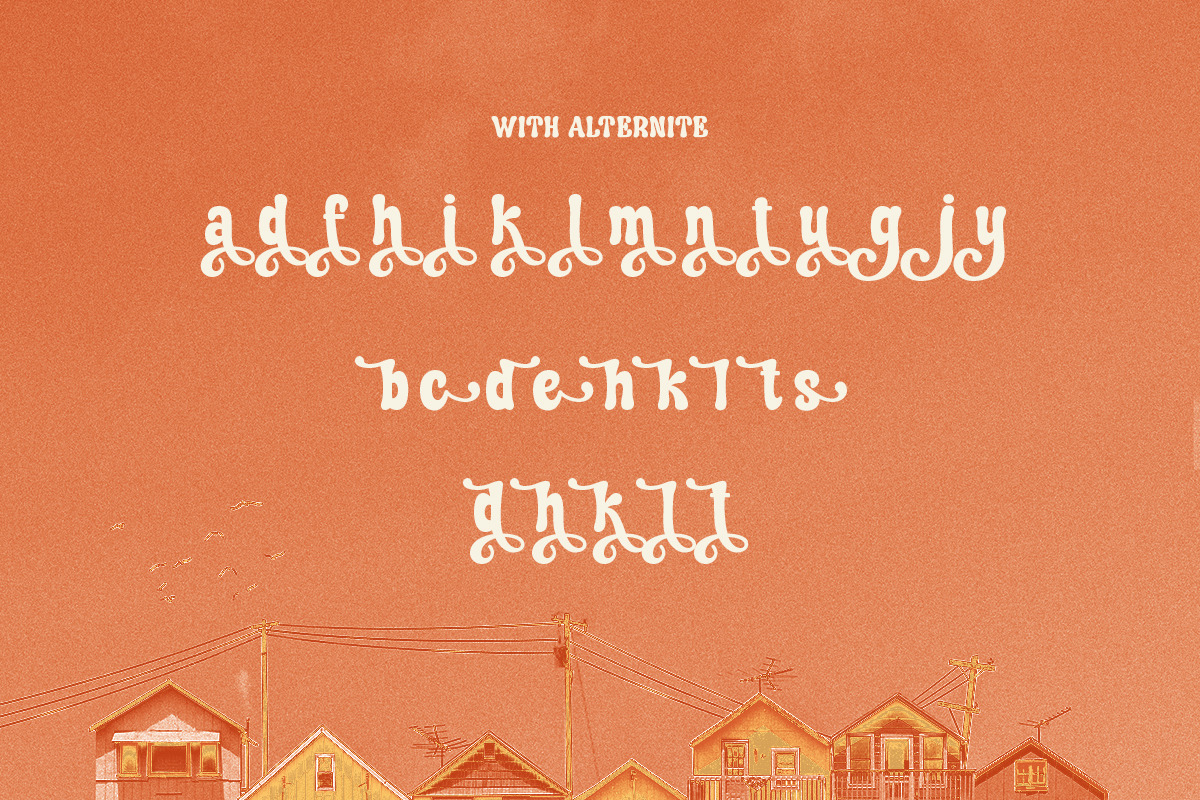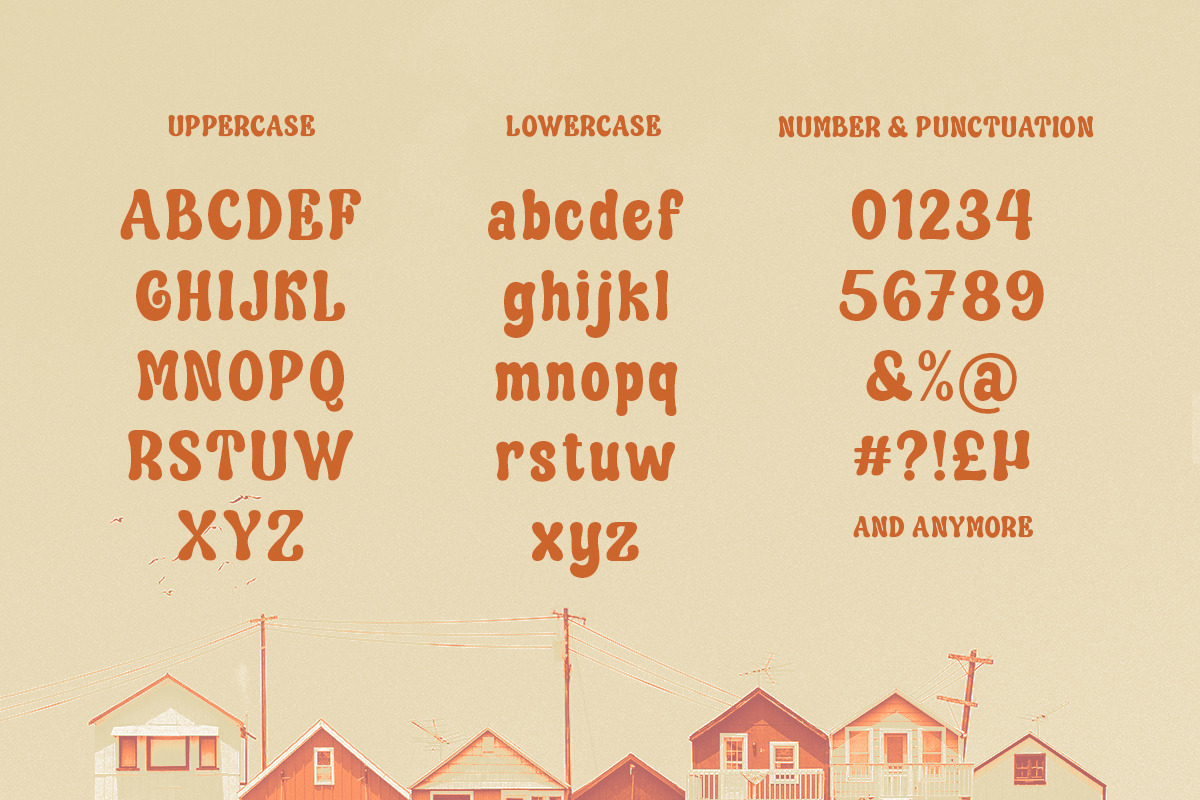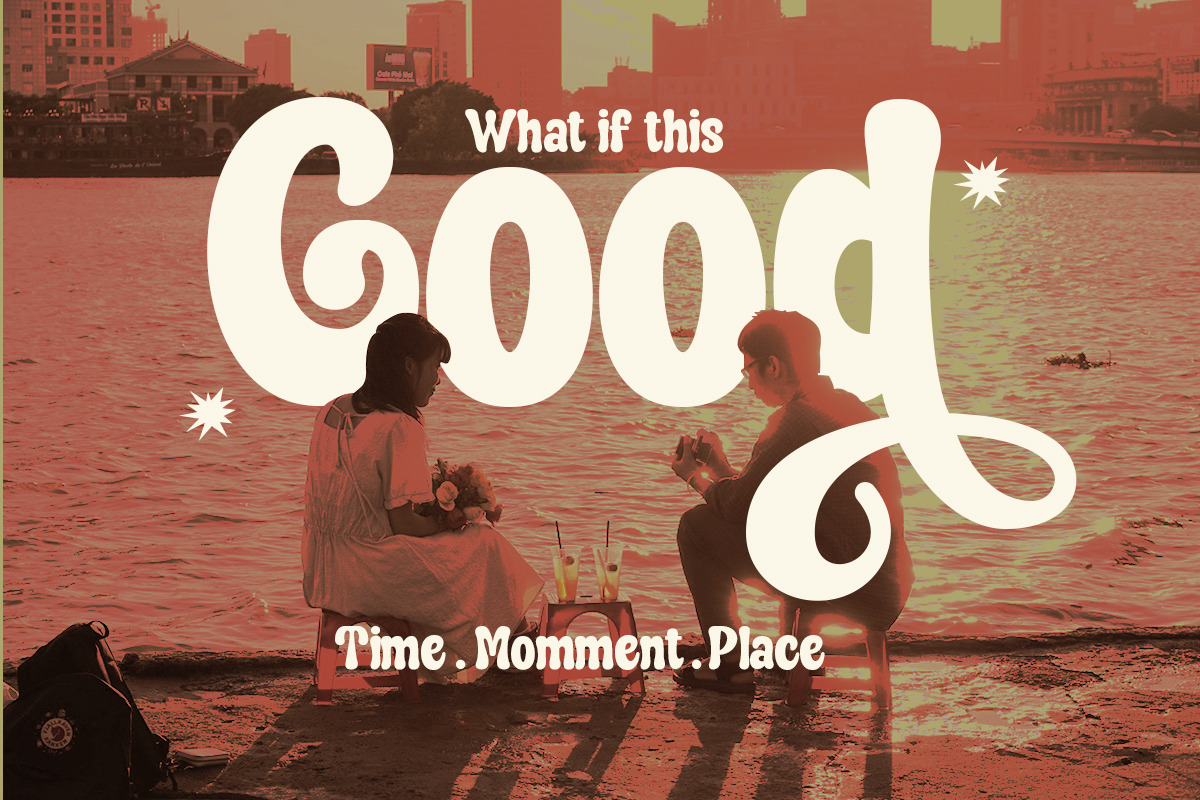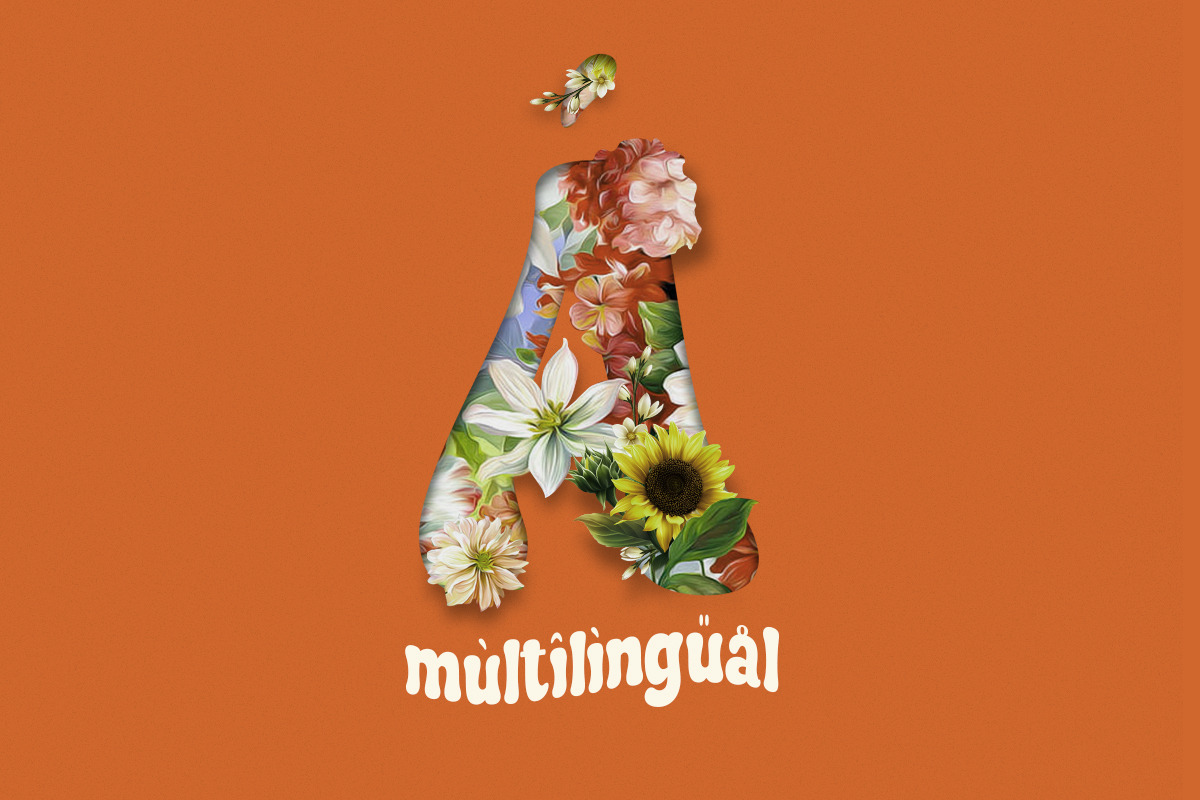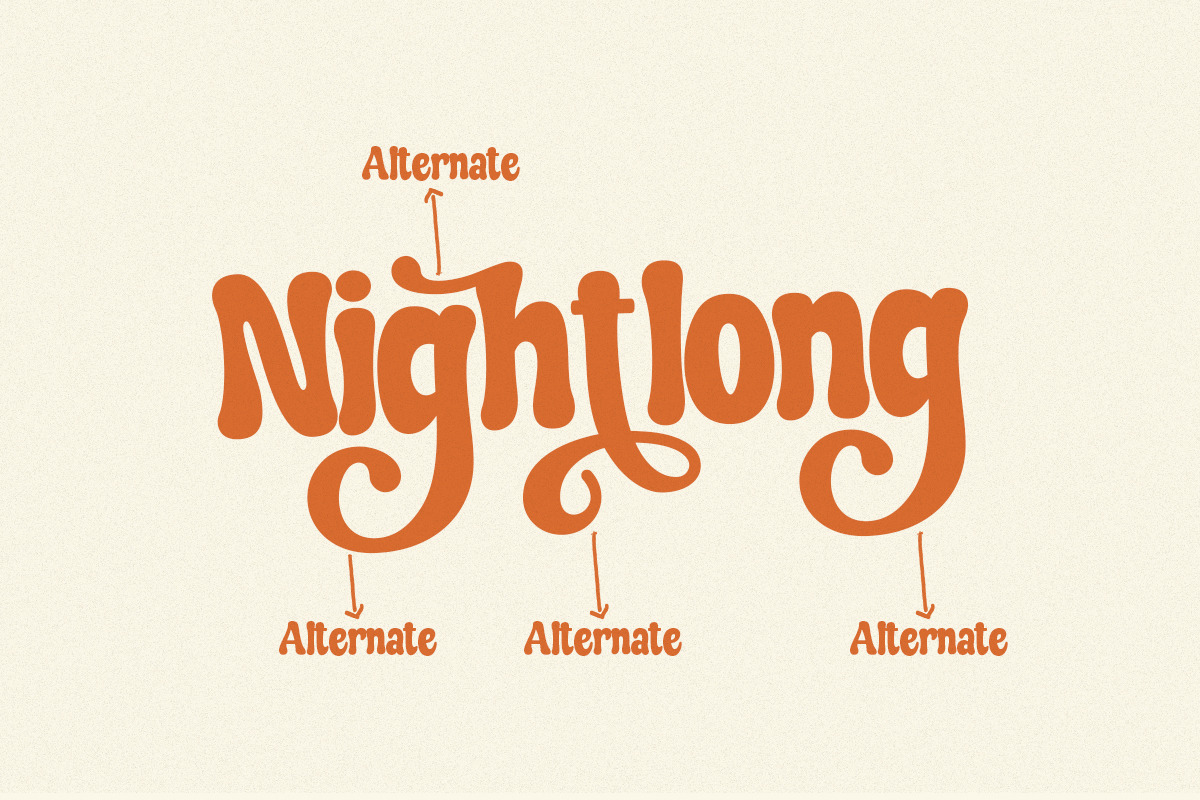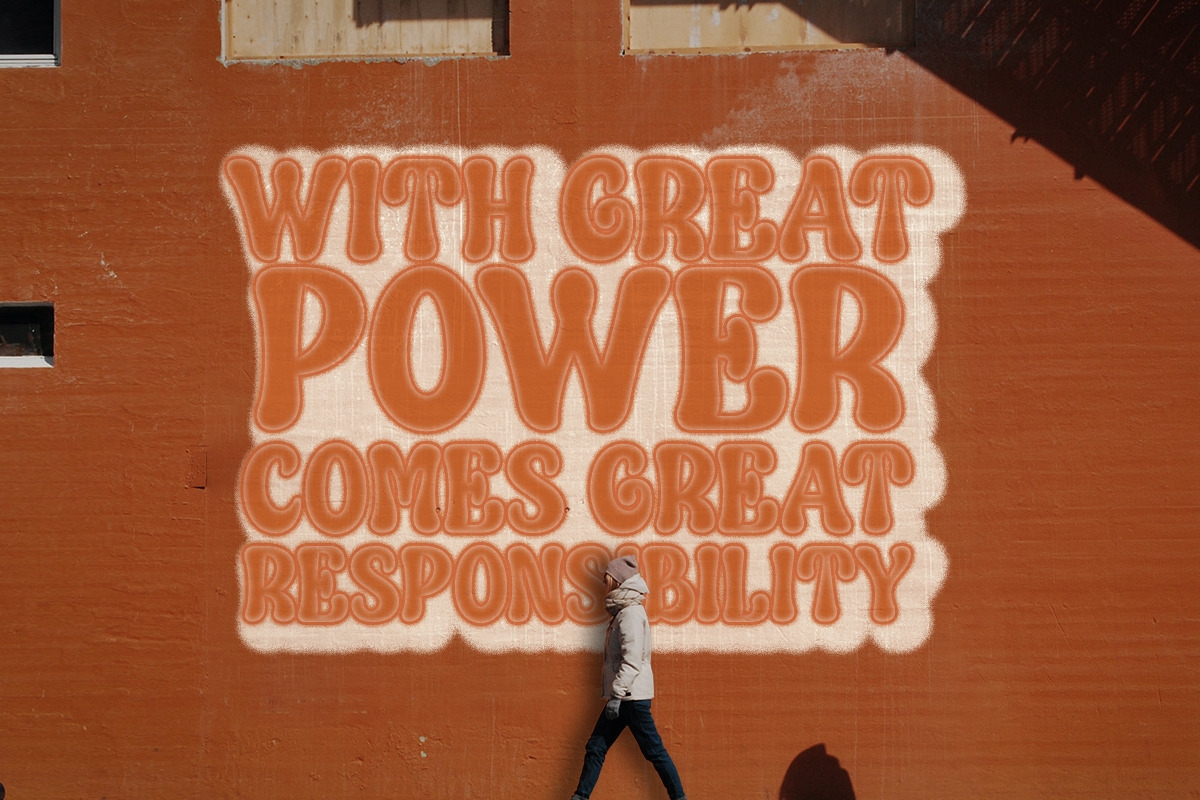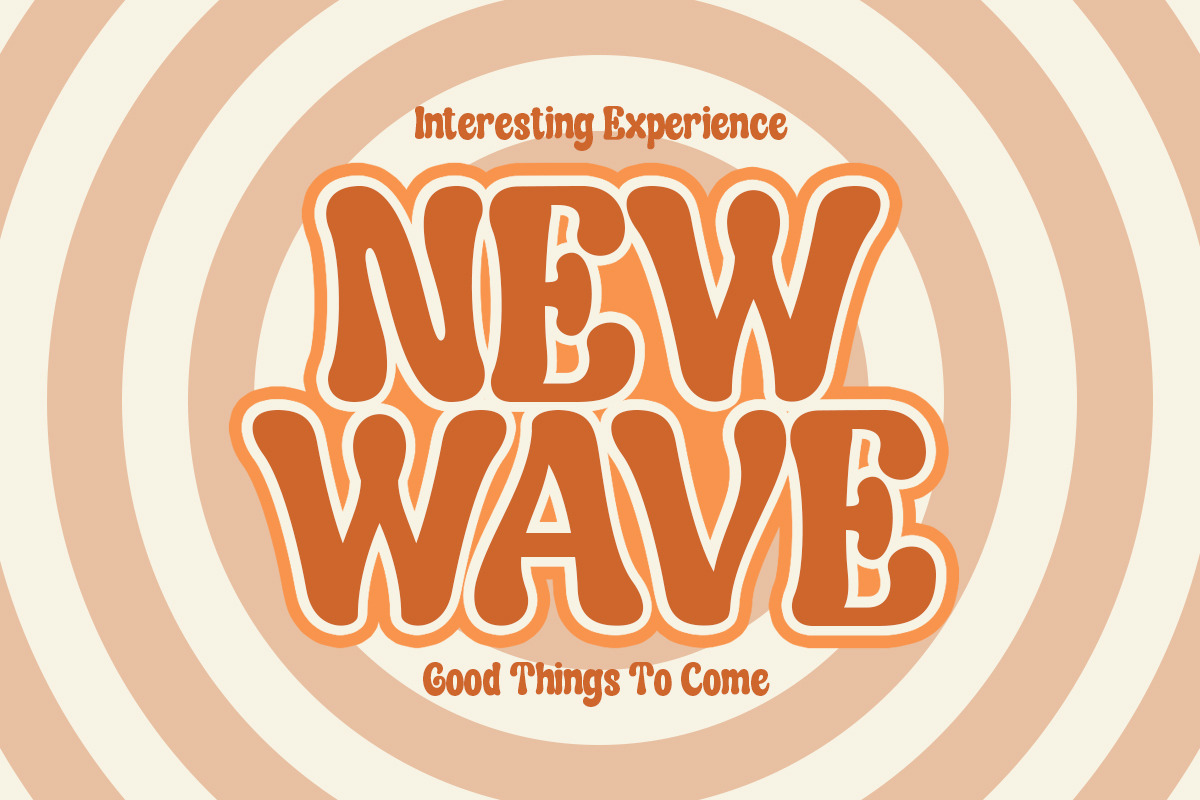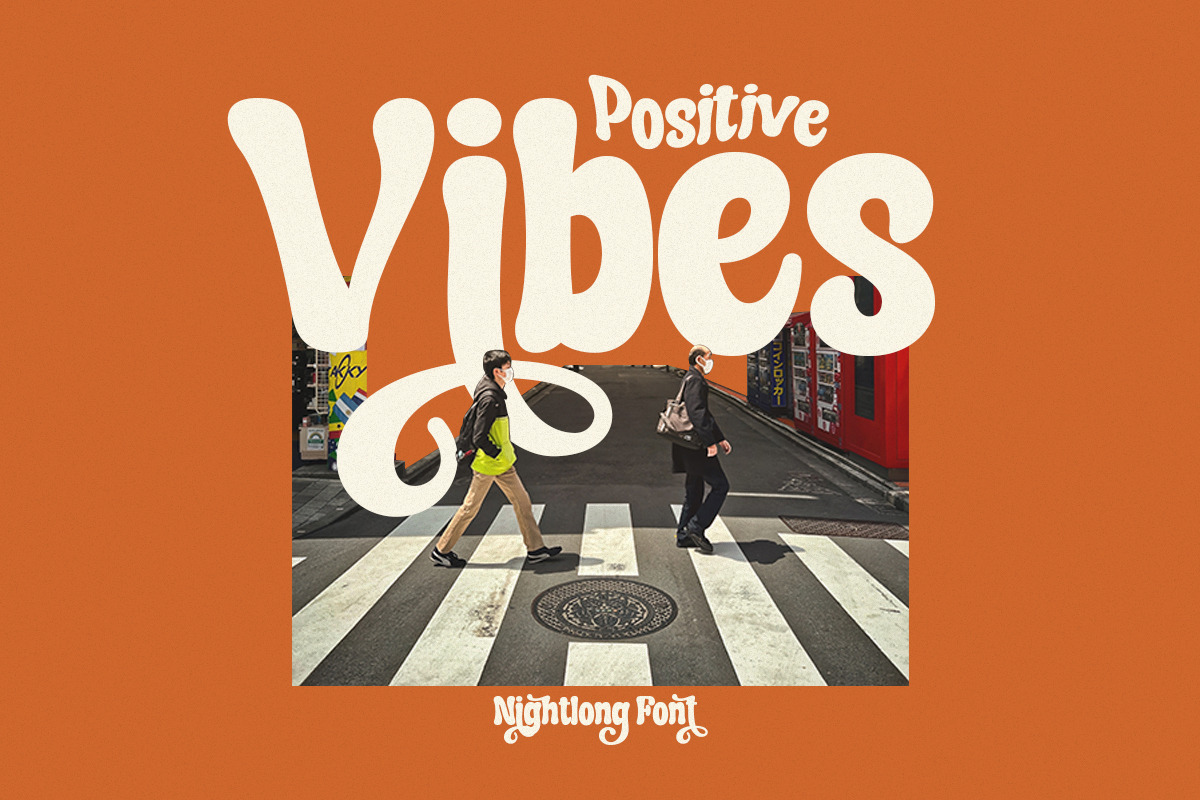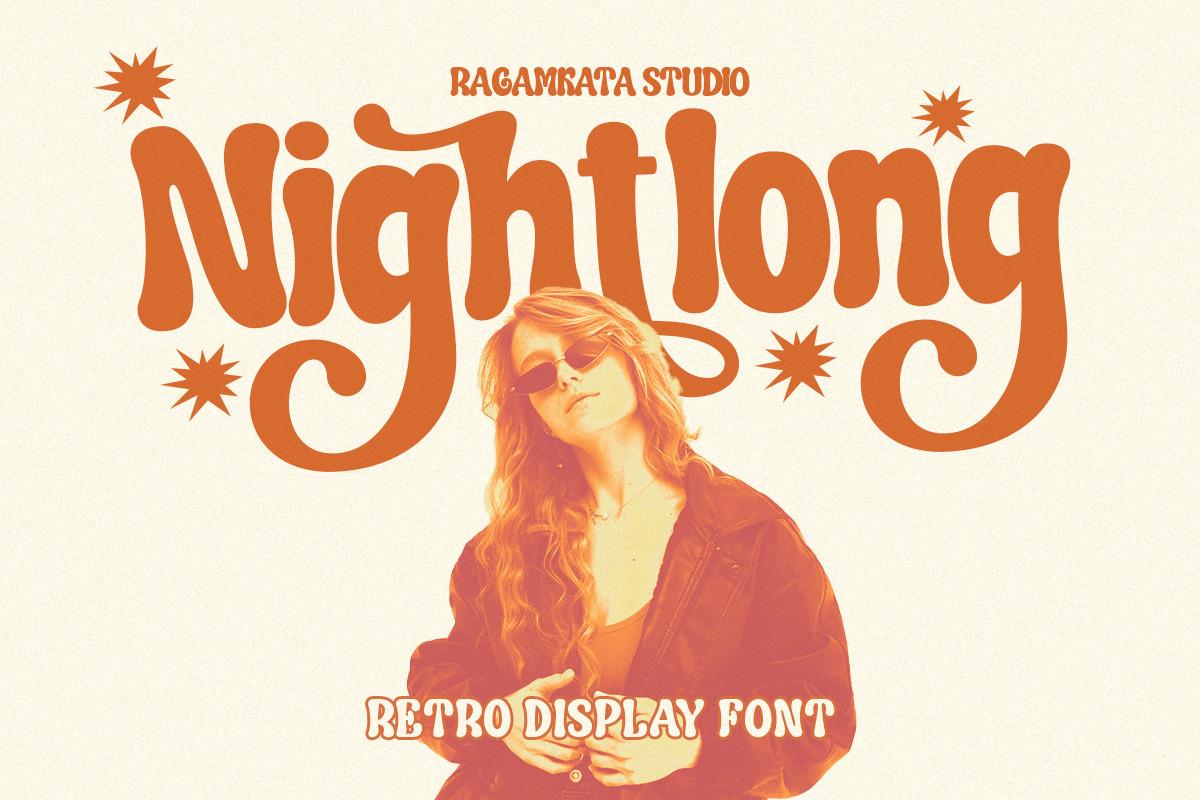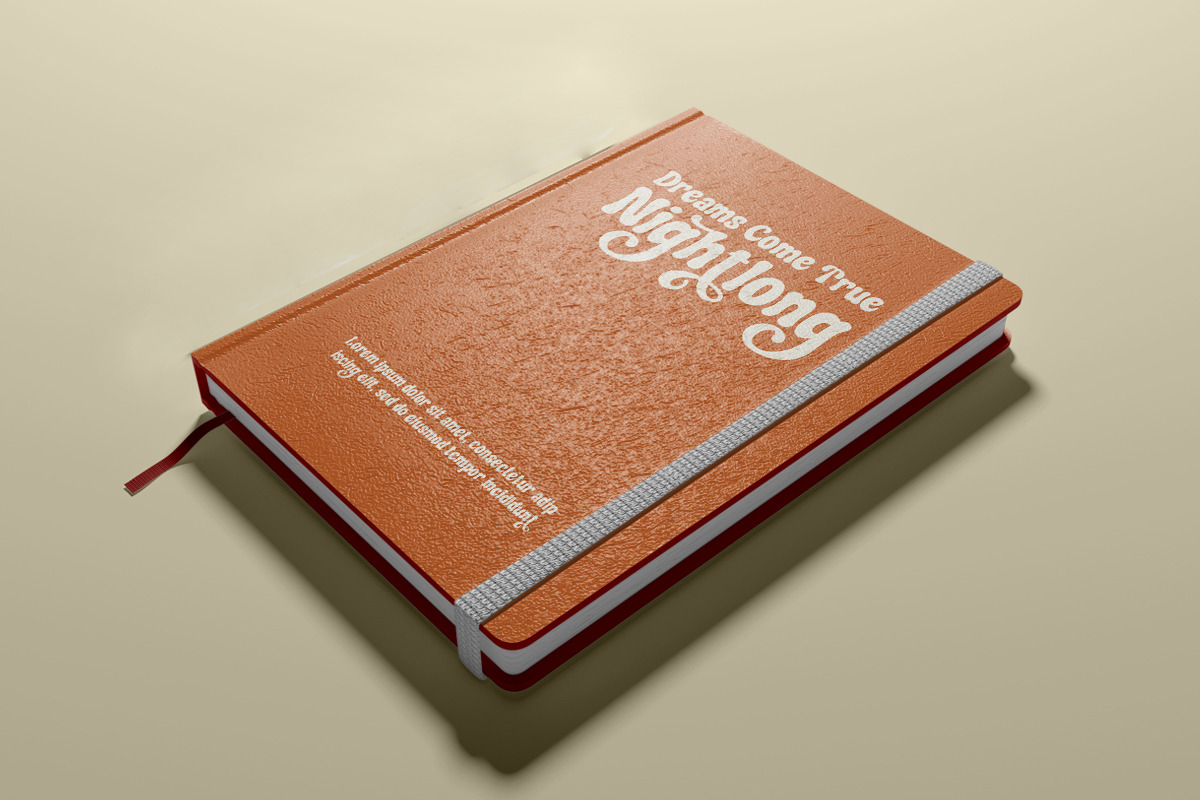
Nightlong - Display Retro Font
New retro display font, Nightlong!
Nightlong is a strong and bold sans serif with a touch of vintage look and feel. This type of font perfectly made to be applied especially in logo, headline, signage and the other various formal forms such as invitations, labels, logos, magazines, books, greeting / wedding cards, packaging, fashion, make up, stationery, novels, labels or any type of advertising purpose.
- Full alternate by uppercase and lowercase
- Alternates and Ligatures
- Letters, numbers, symbols, and punctuation